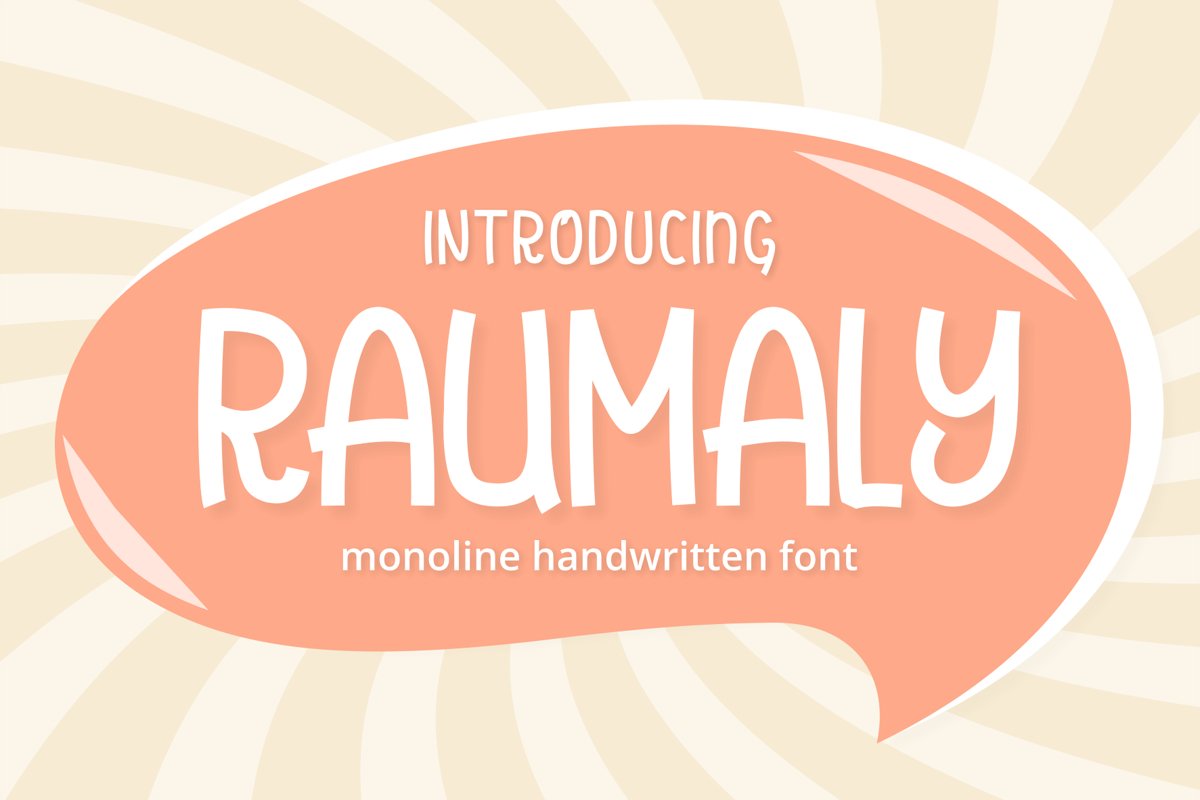
Raumaly
Raumaly is cheerful and delightful monoline hadwritten display font with a dynamic style and incredibly friendly feel.
Raumaly font will turn any creative idea into a true piece of art!, This font is very suitable for beautiful stationary art, eye-catching social media posts,  poster, comic, headline, and anything.